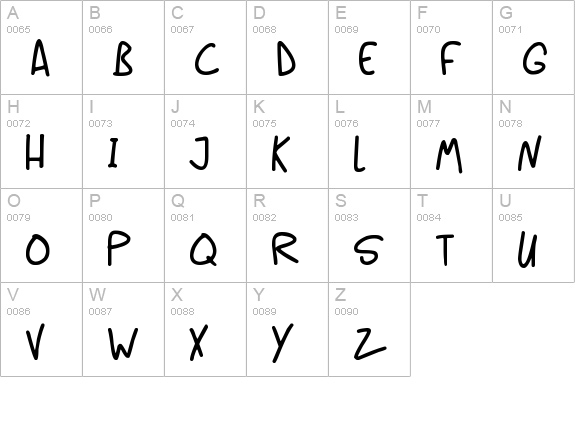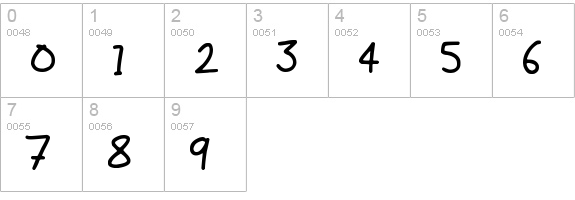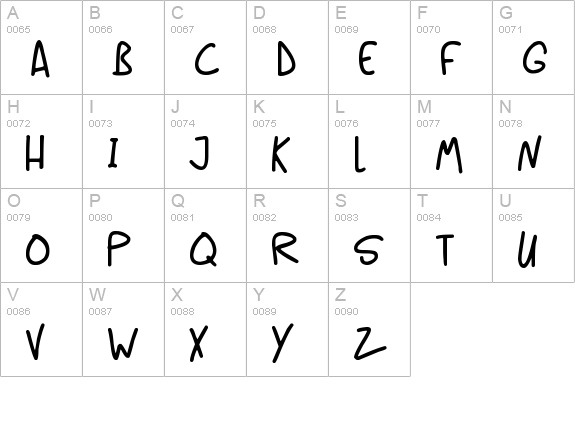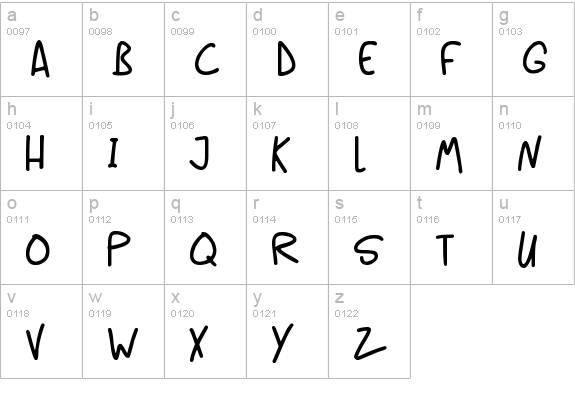
Casual Caps Font Details
Casual Caps is a donationware font in the Script > Handwritten category, designed by Darrell Flood. It has been downloaded 69 times and is available for Windows, Mac and Linux.
Casual Caps font is a charming and versatile typeface perfect for adding a touch of casual elegance to your designs. With its friendly and upbeat appearance, this font is ideal for creating eye-catching headings, logos, and branding materials. The casual yet stylish letterforms of Casual Caps font make it a great choice for a variety of projects, from social media graphics to product packaging.